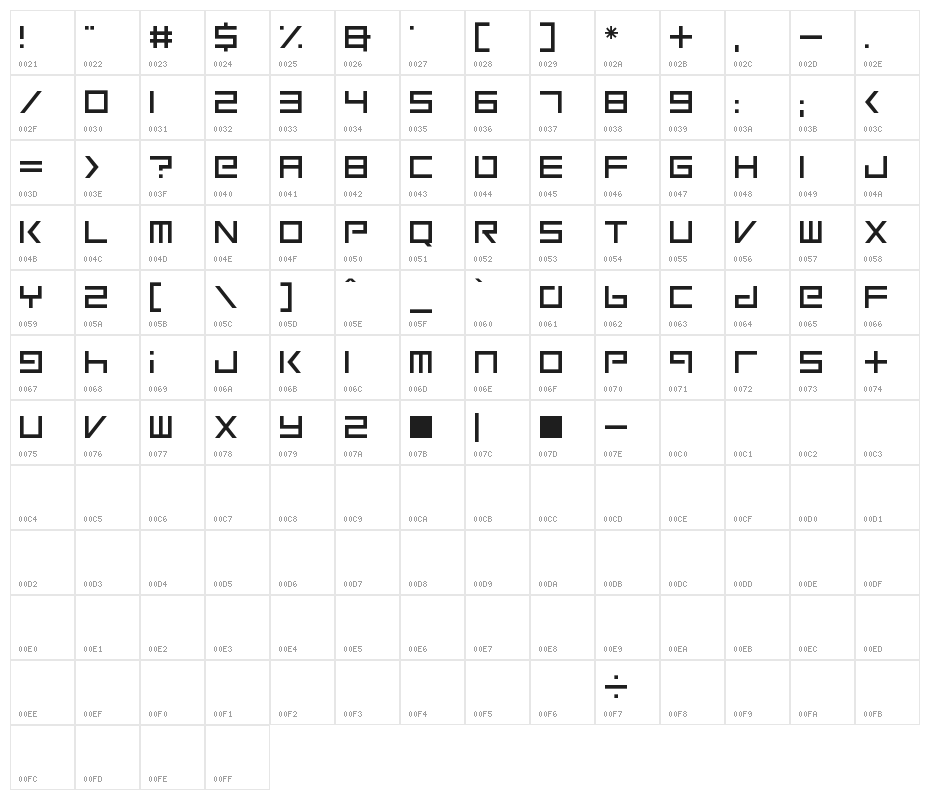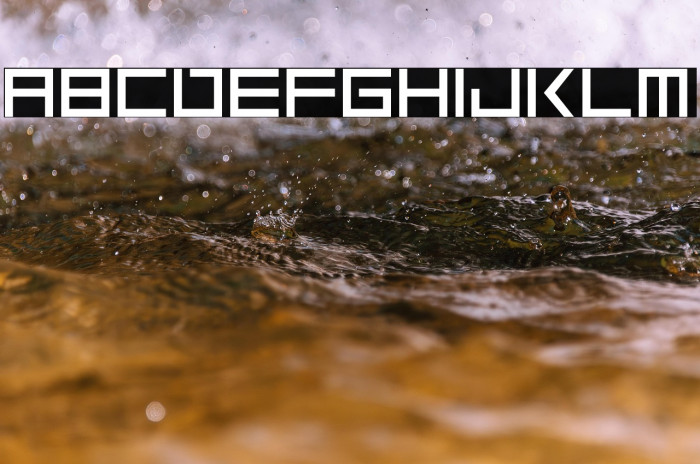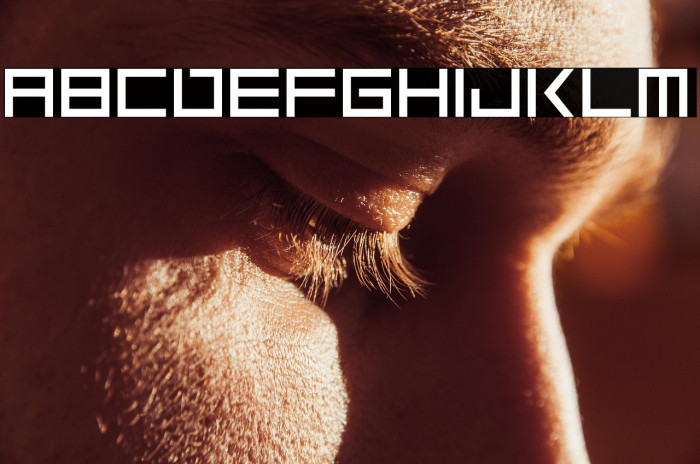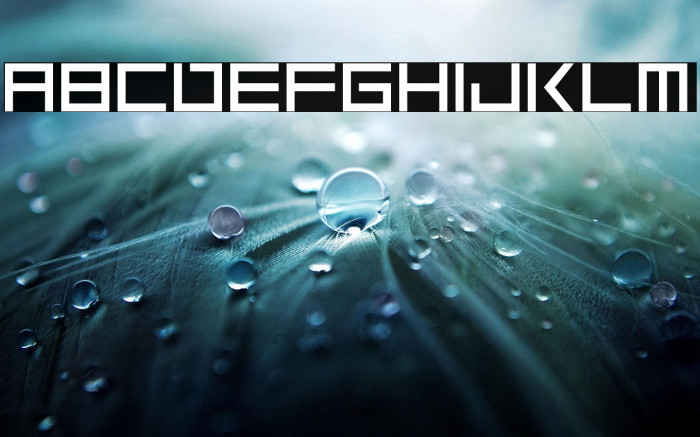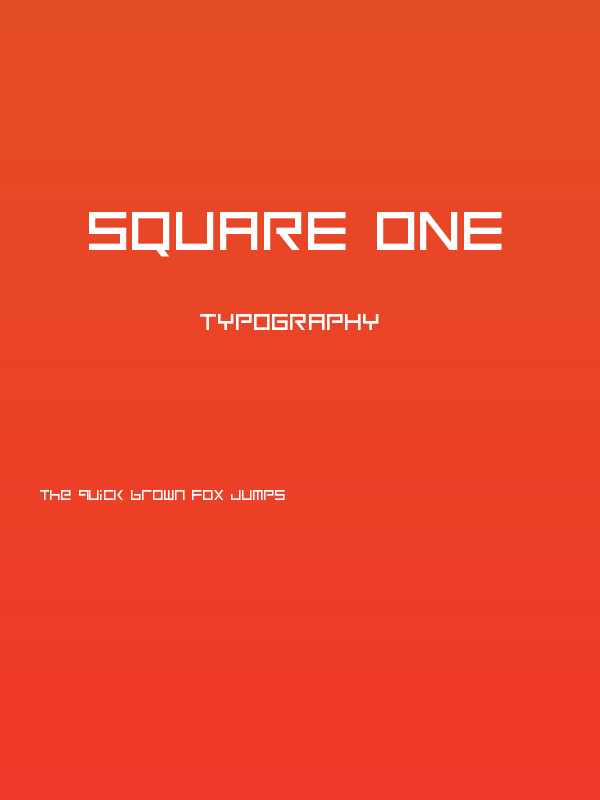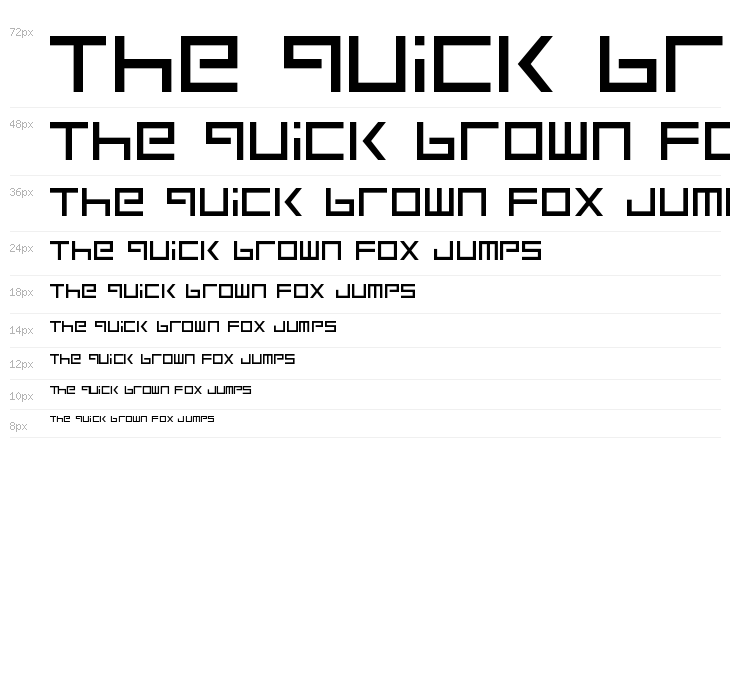
Square One Font
Square One Description
This font features a geometric and futuristic design, characterized by its square and angular letterforms. Each character is constructed with consistent line thickness, creating a uniform and structured appearance. The font's design is reminiscent of digital or technological themes, making it suitable for modern and innovative projects. The uppercase and lowercase letters maintain a similar style, with subtle variations to distinguish them. Numbers and special characters are designed to match the overall aesthetic, ensuring a cohesive look across all text elements.
| Proposed Projects | Ideal for technology branding, digital interfaces, video game titles, and sci-fi themed designs. |